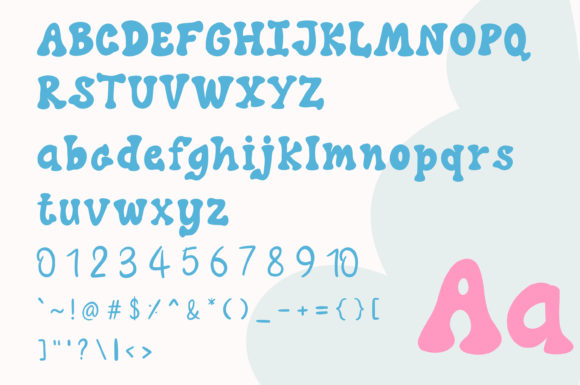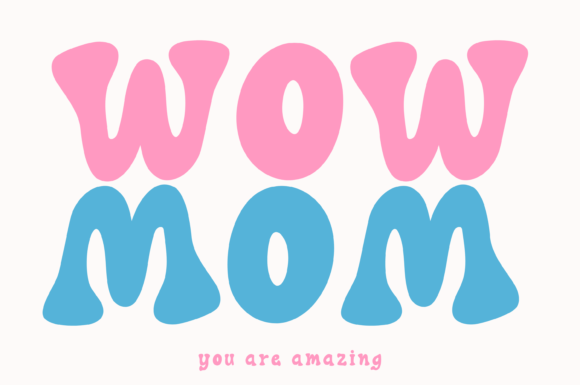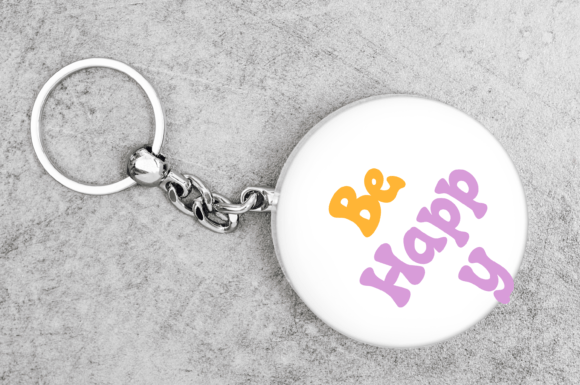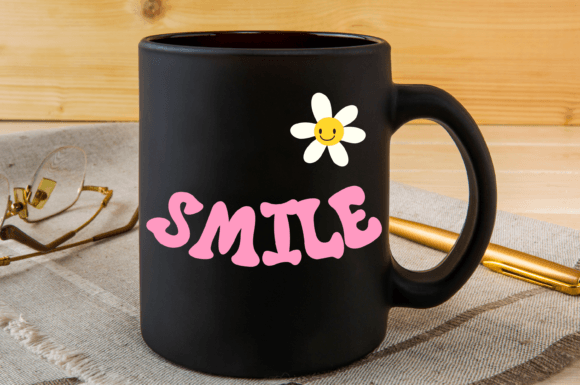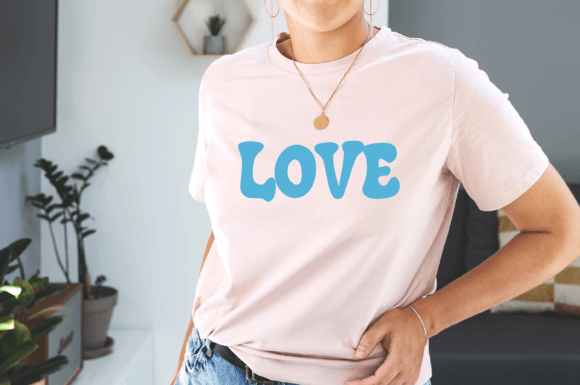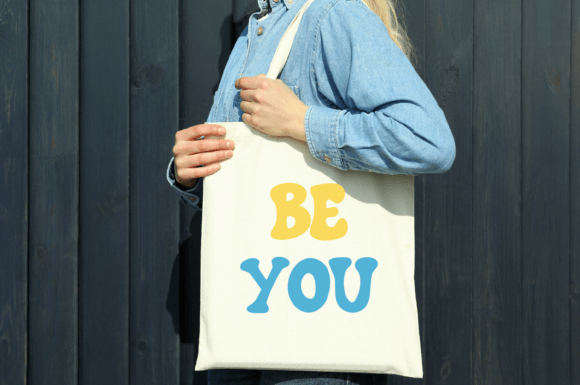
Introducing Happy Sunday Font: The Perfect Addition to Your Creative Projects
Are you tired of using the same old fonts in your designs? Look no further than Happy Sunday Font, a whimsical and clean handwritten font that’s sure to make your projects stand out. With its unique blend of playfulness and sophistication, Happy Sunday Font is the perfect addition to any creative idea.
What is Happy Sunday Font?
Happy Sunday Font is a carefully crafted handwritten font that’s designed to bring a touch of personality to your designs. Its whimsical feel makes it perfect for projects that require a bit of flair, while its clean lines ensure that it remains highly legible. Whether you’re working on a branding project, a craft, or a digital design, Happy Sunday Font is sure to make a lasting impression.
Key Features of Happy Sunday Font
- Whimsical and clean design: Happy Sunday Font features a unique blend of playful and sophisticated design elements, making it perfect for a wide range of projects.
- Highly legible: Despite its whimsical feel, Happy Sunday Font remains highly legible, ensuring that your message is always clear and easy to read.
- Versatile: Happy Sunday Font can be used in a wide range of projects, from branding and advertising to crafting and digital design.
- Easily paired with other fonts: Happy Sunday Font can be easily paired with other fonts to create a unique and eye-catching design.
How to Use Happy Sunday Font in Your Projects
Happy Sunday Font is incredibly versatile, making it perfect for a wide range of projects. Here are just a few ideas to get you started:
- Branding and advertising: Use Happy Sunday Font to add a touch of personality to your brand or advertising campaign.
- Crafting: Happy Sunday Font is perfect for crafters who want to add a personal touch to their projects, from scrapbooking to card making.
- Digital design: Use Happy Sunday Font to add a touch of whimsy to your digital designs, from social media graphics to website headers.
- Stationery and invitations: Happy Sunday Font is perfect for creating custom stationery, invitations, and other paper crafts.
Why Choose Happy Sunday Font?
With so many fonts to choose from, why should you choose Happy Sunday Font? Here are just a few reasons:
- Unique design: Happy Sunday Font features a unique and eye-catching design that’s sure to make your projects stand out.
- High-quality: Happy Sunday Font is a high-quality font that’s designed to deliver exceptional results.
- Easily customizable: Happy Sunday Font can be easily customized to fit your project’s specific needs.
Happy Sunday Font is a whimsical and clean handwritten font that’s perfect for designers and crafters who want to add a touch of personality to their projects. With its unique design, high-quality construction, and versatility, Happy Sunday Font is sure to become a favorite in your font collection. So why wait? Download Happy Sunday Font today and start creating projects that stand out!